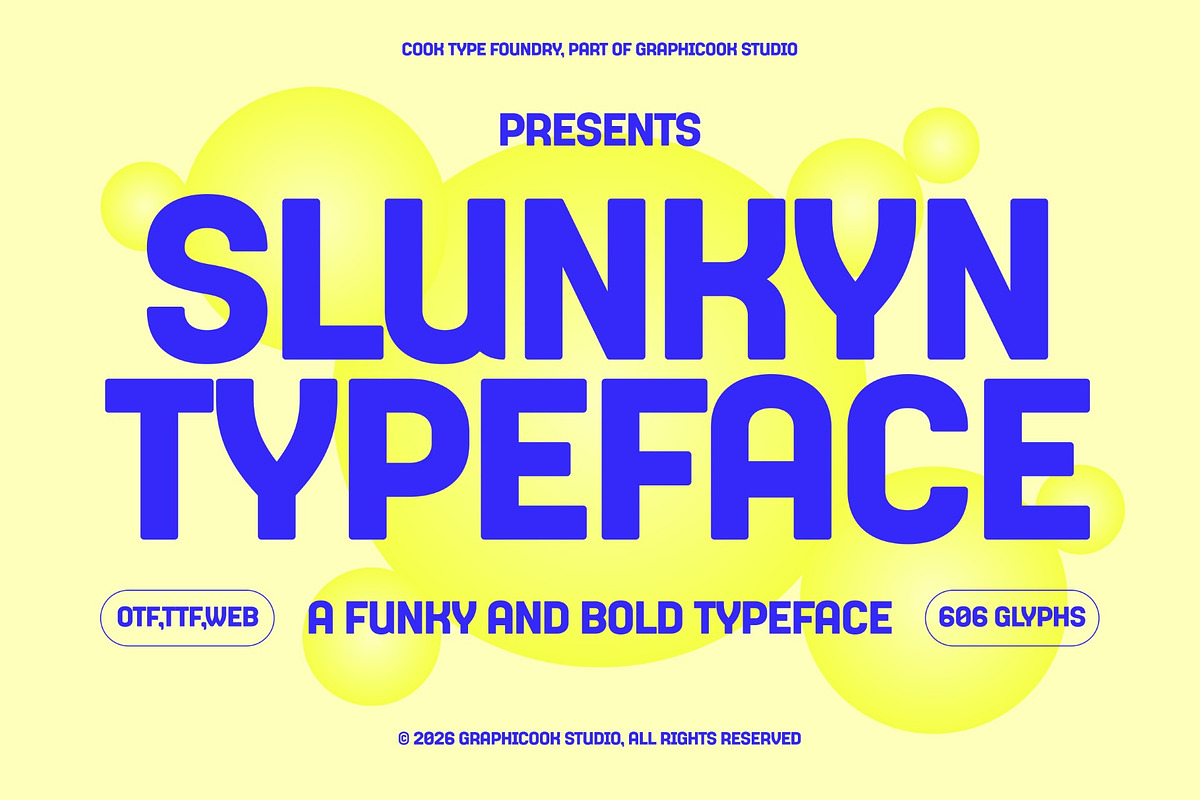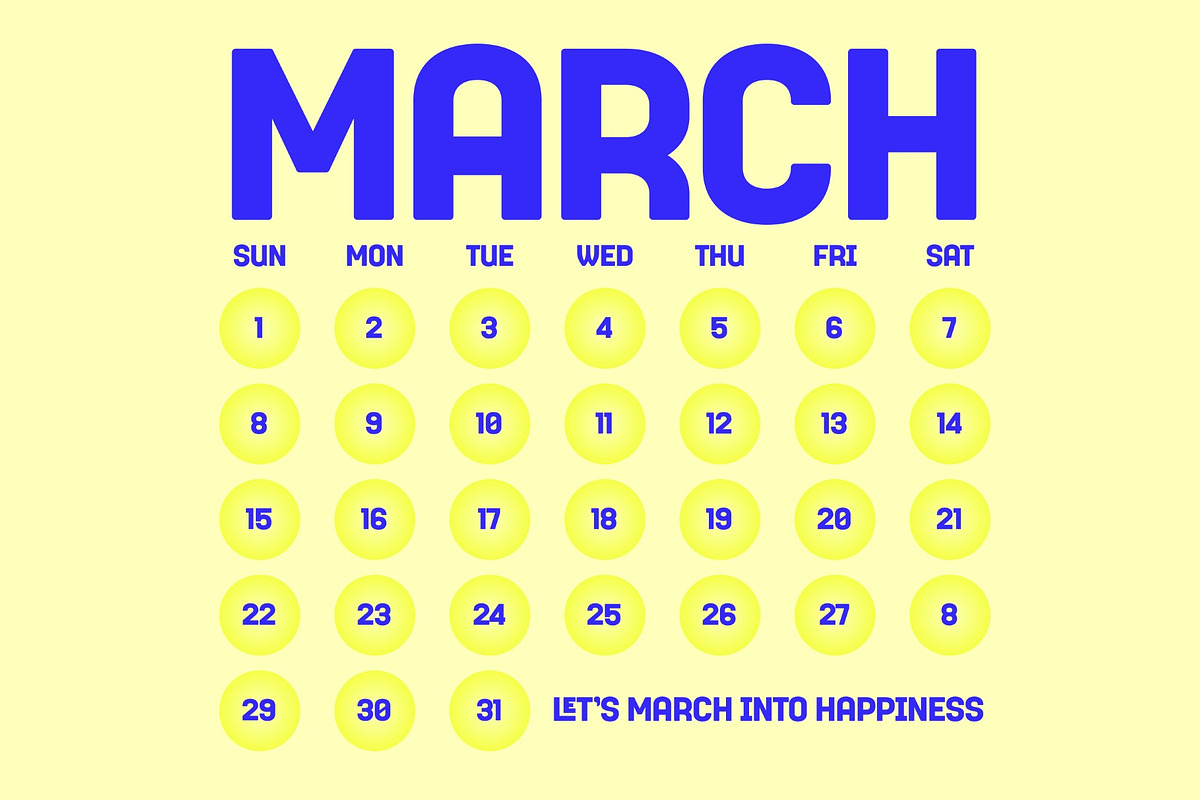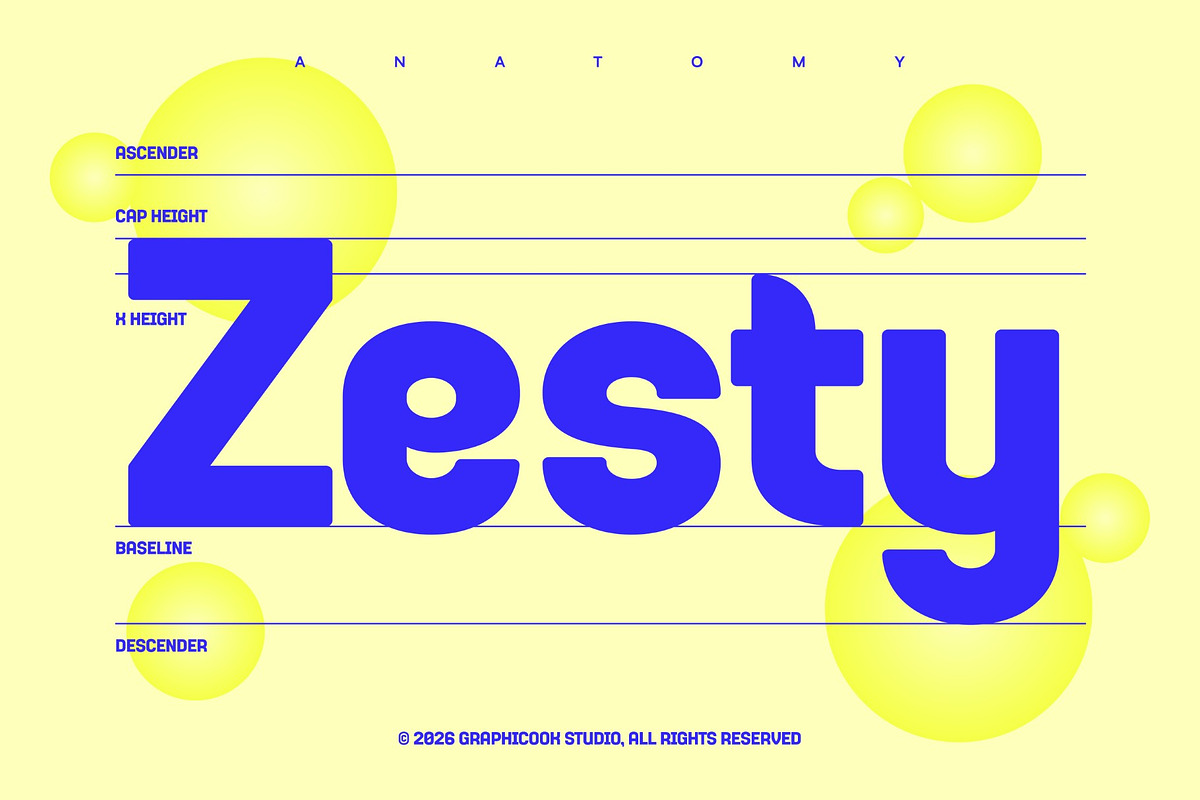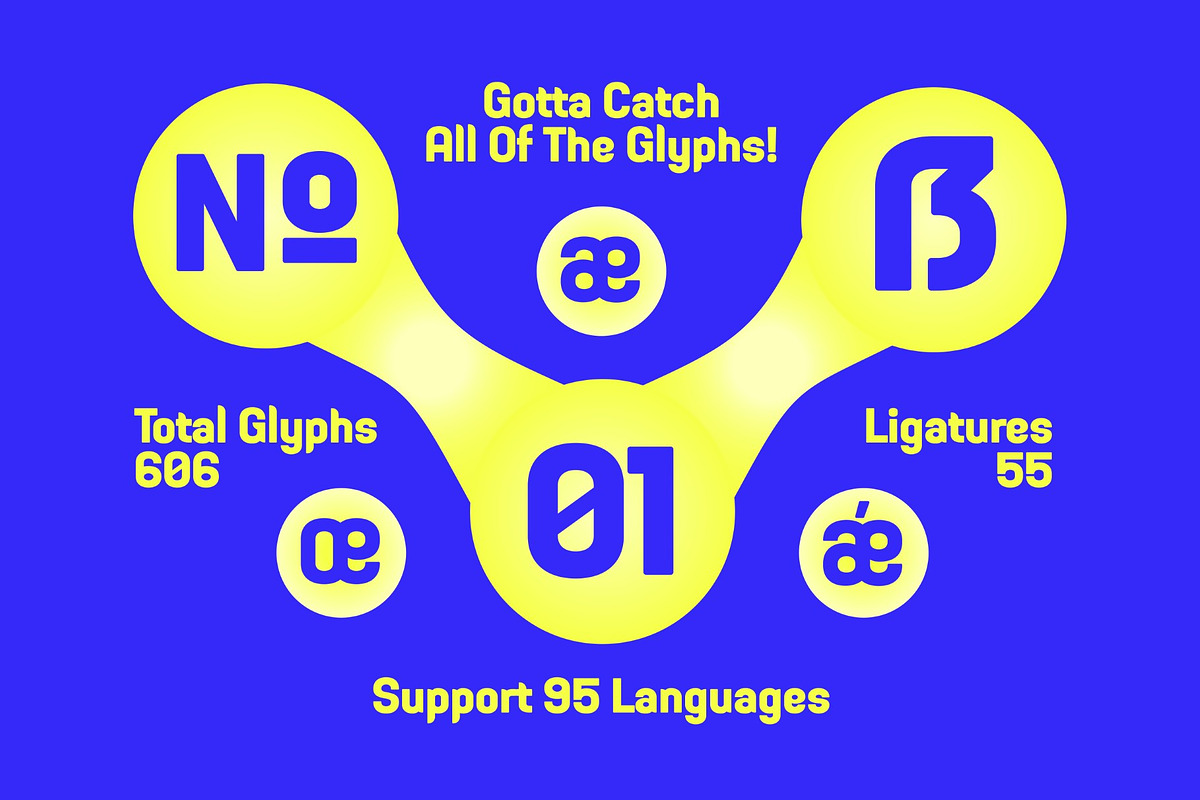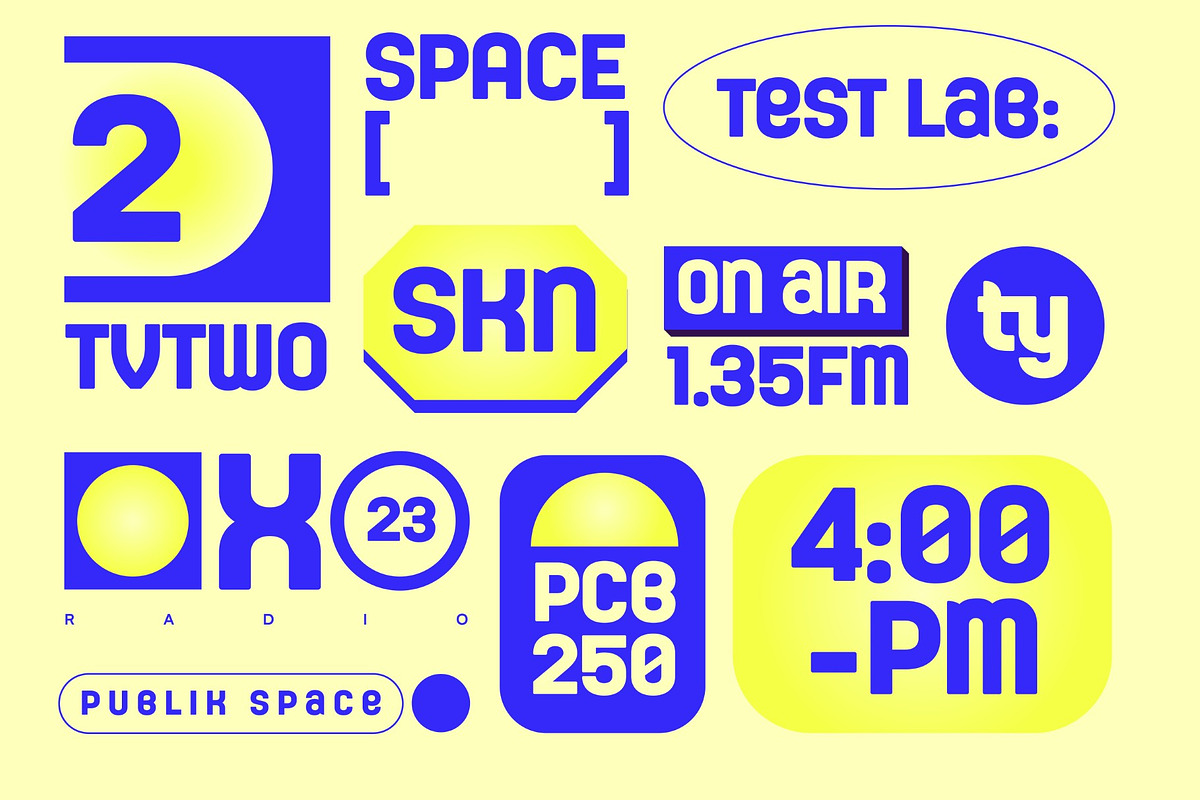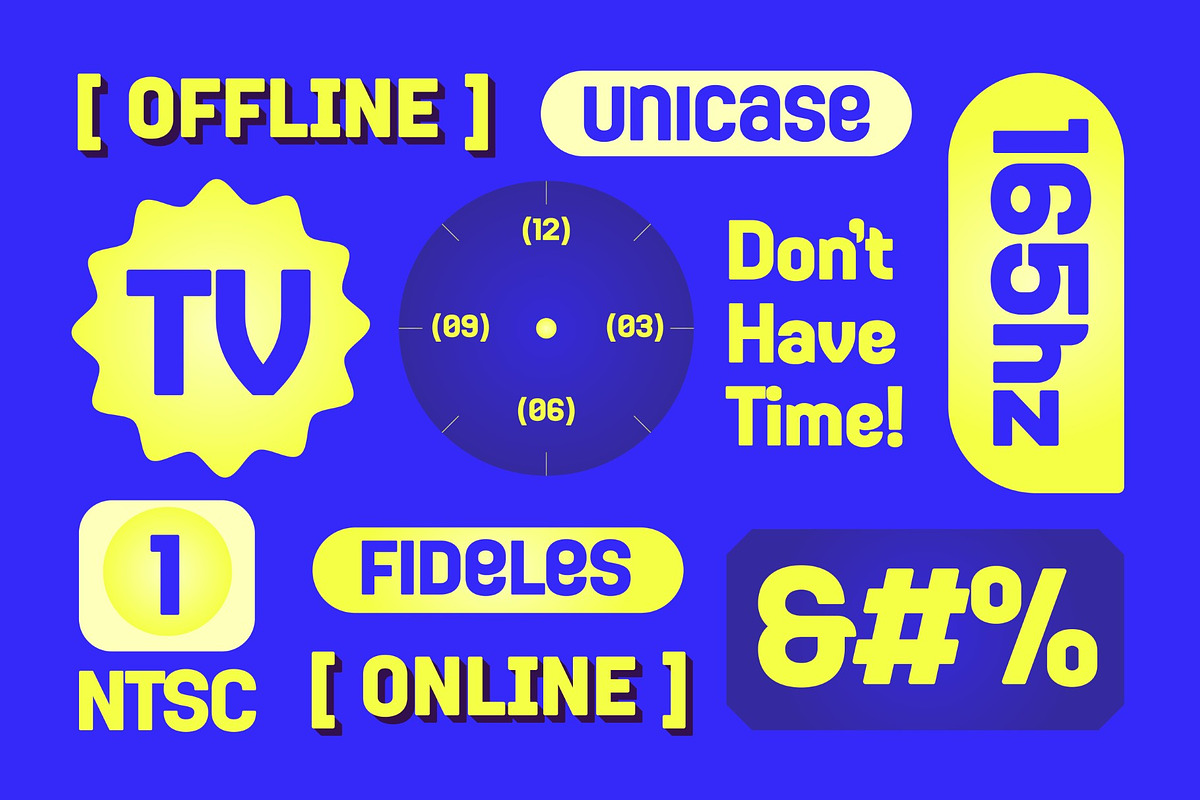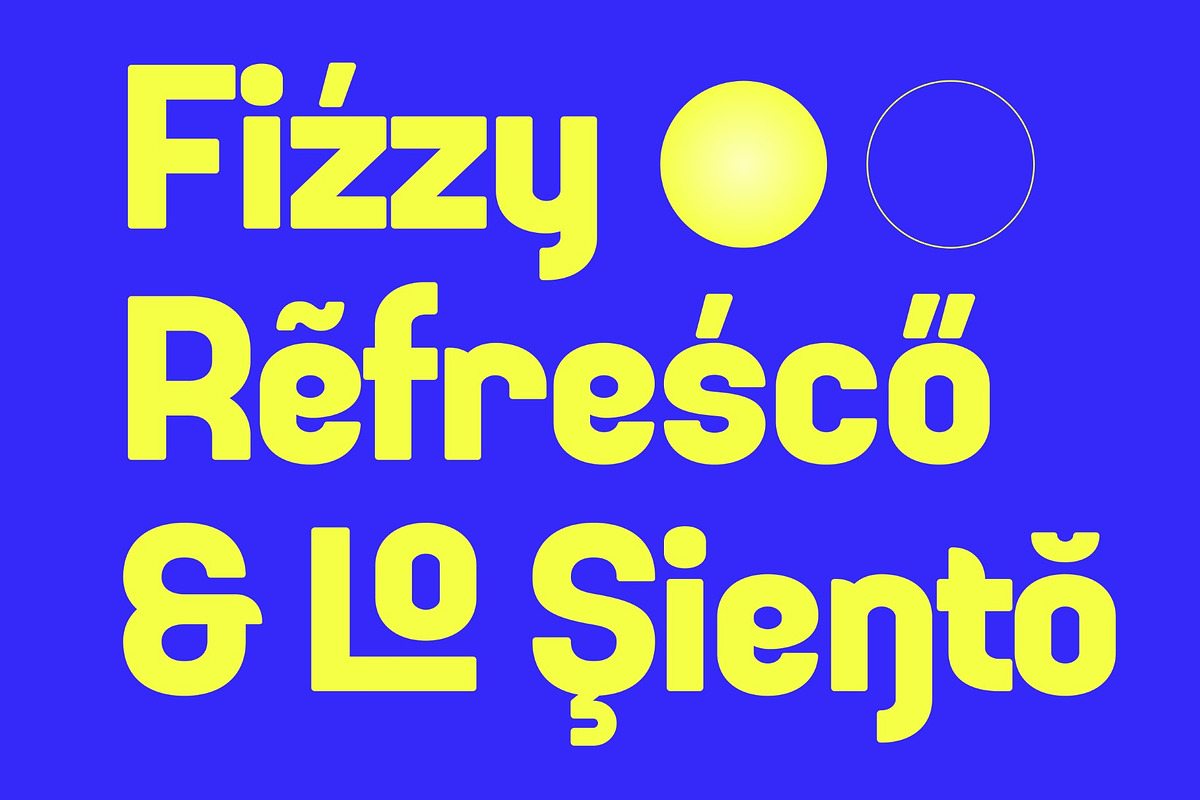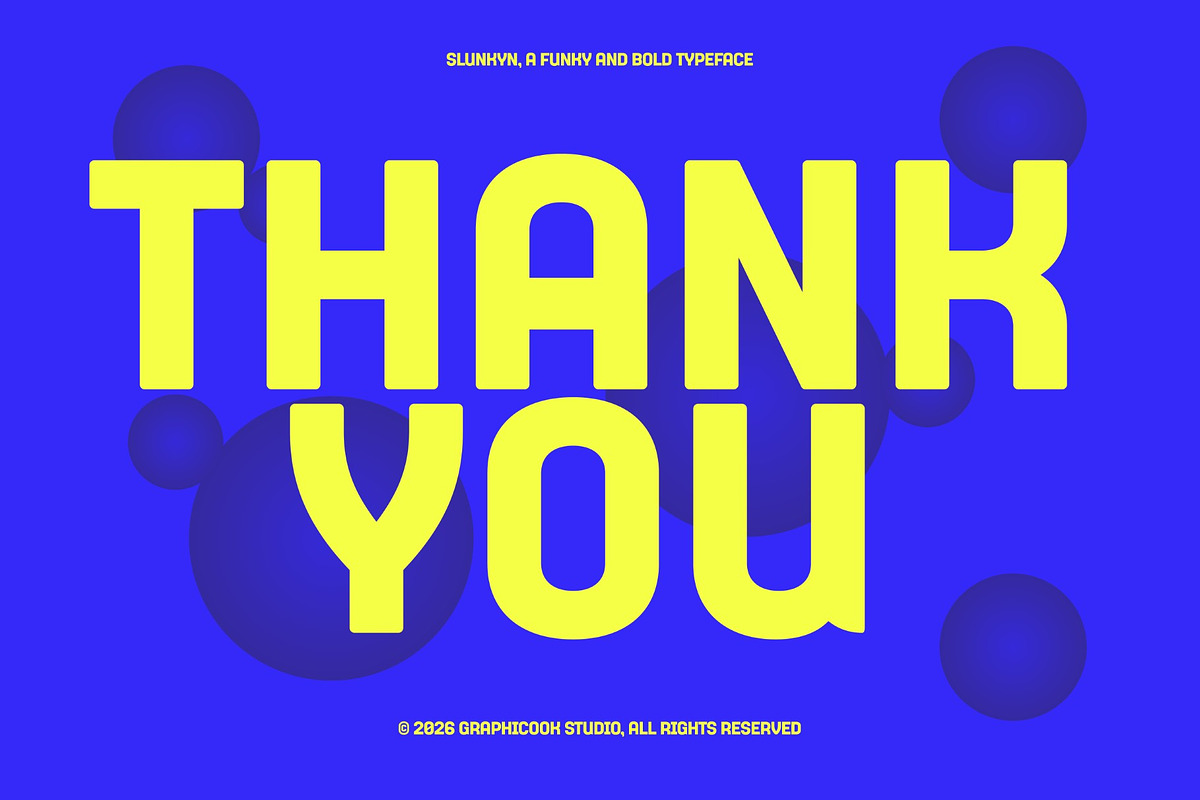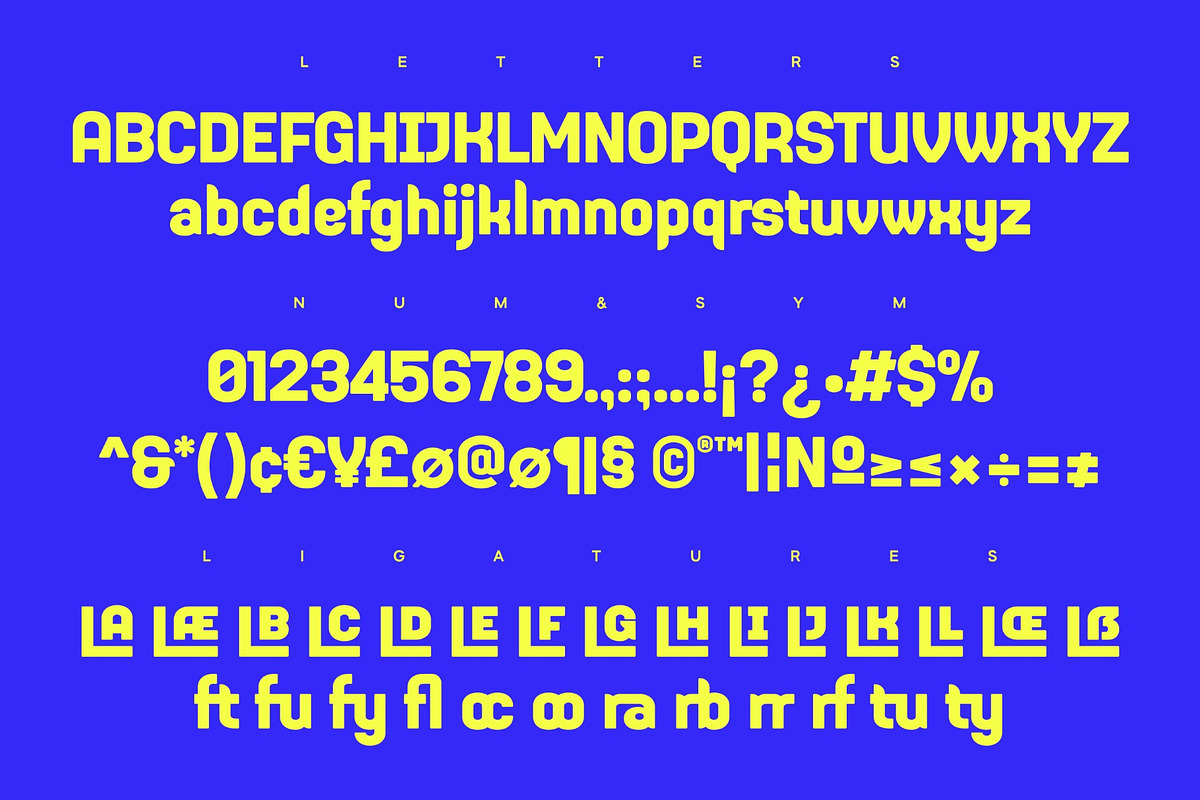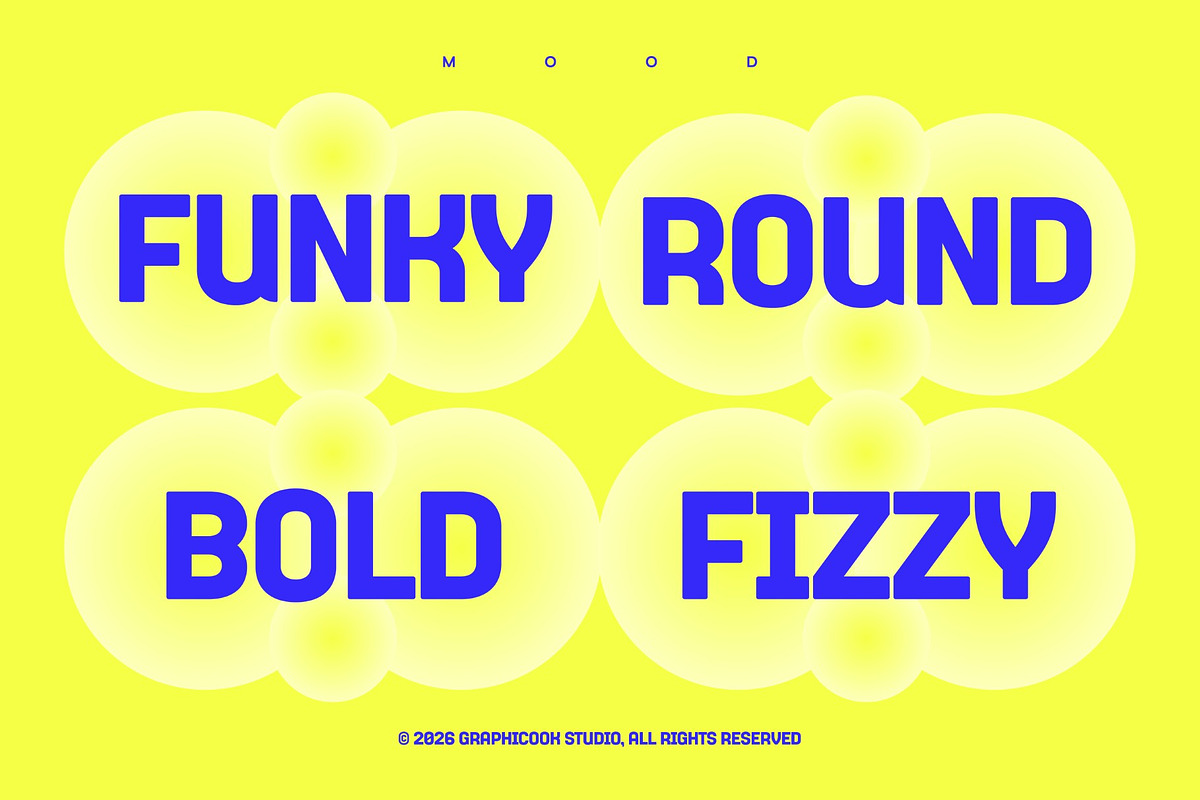
Slunkyn
Slunkyn is a bold display font with a funky, modern style designed to feel energetic and visually striking. Its solid, slightly playful letterforms create a dynamic yet powerful impression, making it perfect for bold and distinctive design projects.
It is perfect for headlines, logotypes, magazines, packaging, quotes, movies, games, cover albums, book covers, and flyers, it's a perfect solution for creating eye-catching designs that stand out in any context.